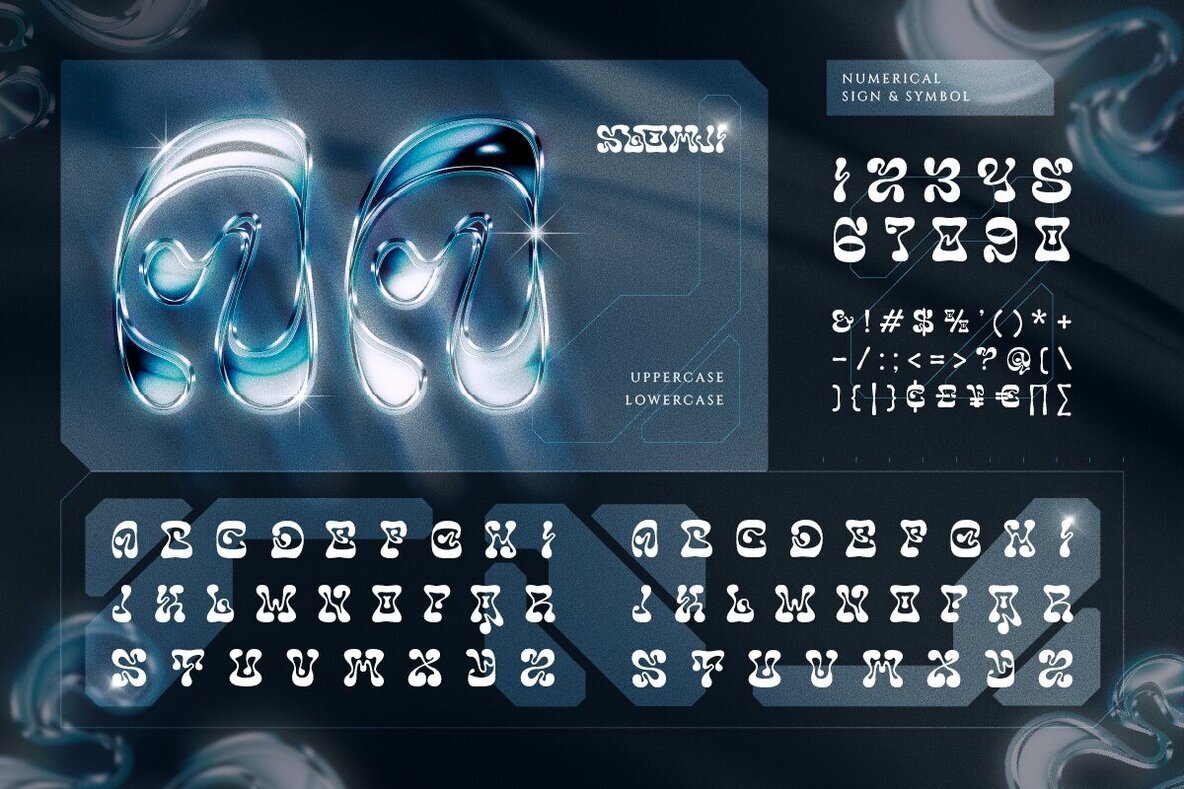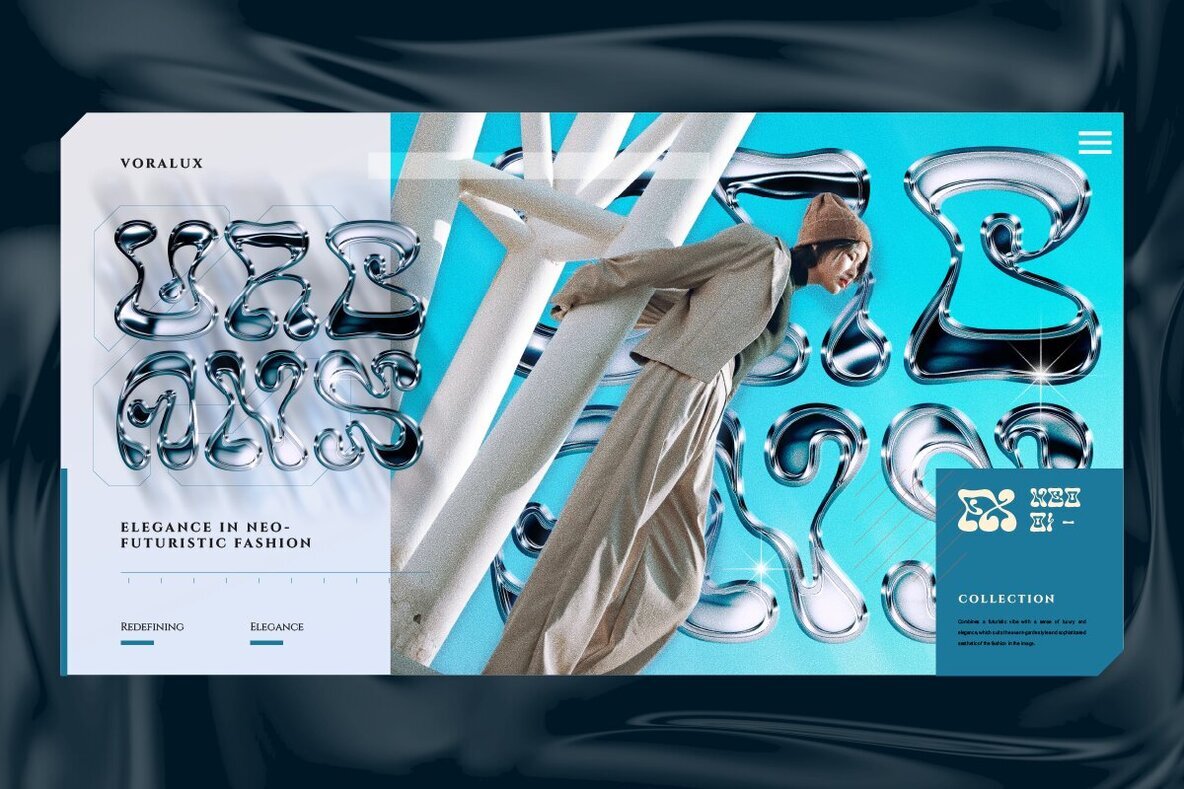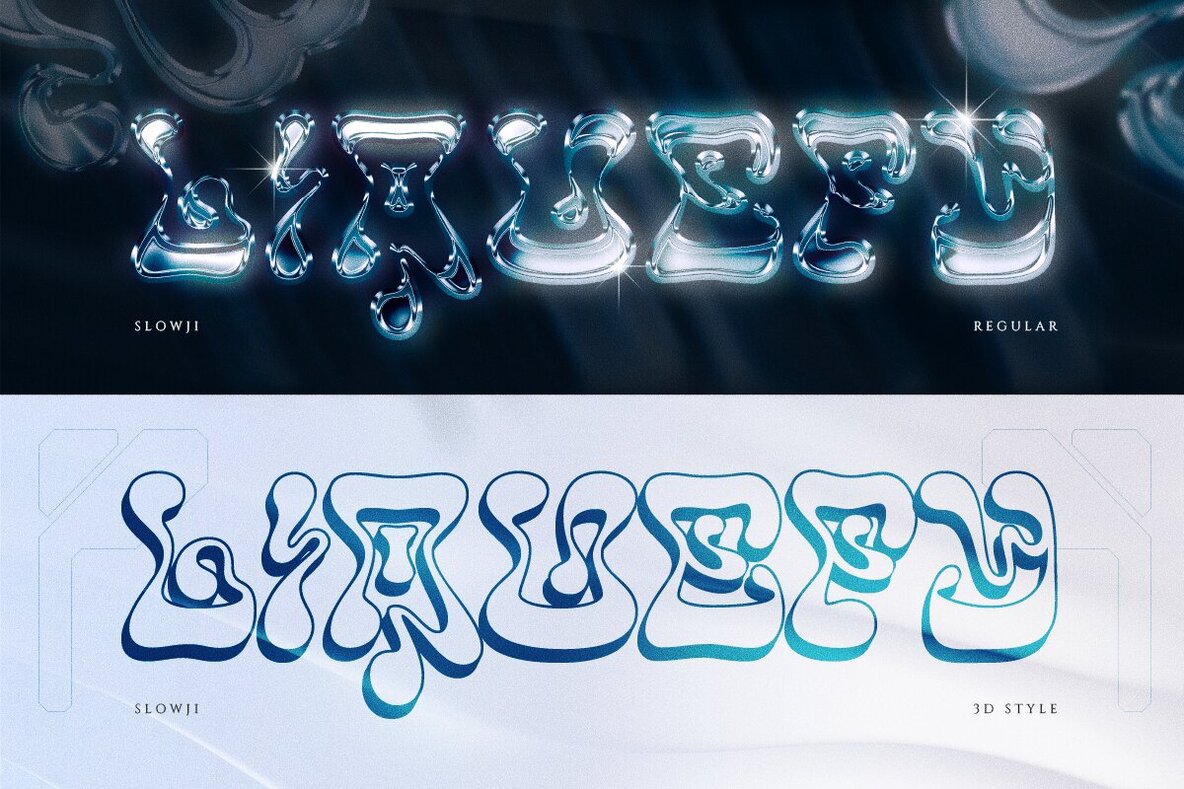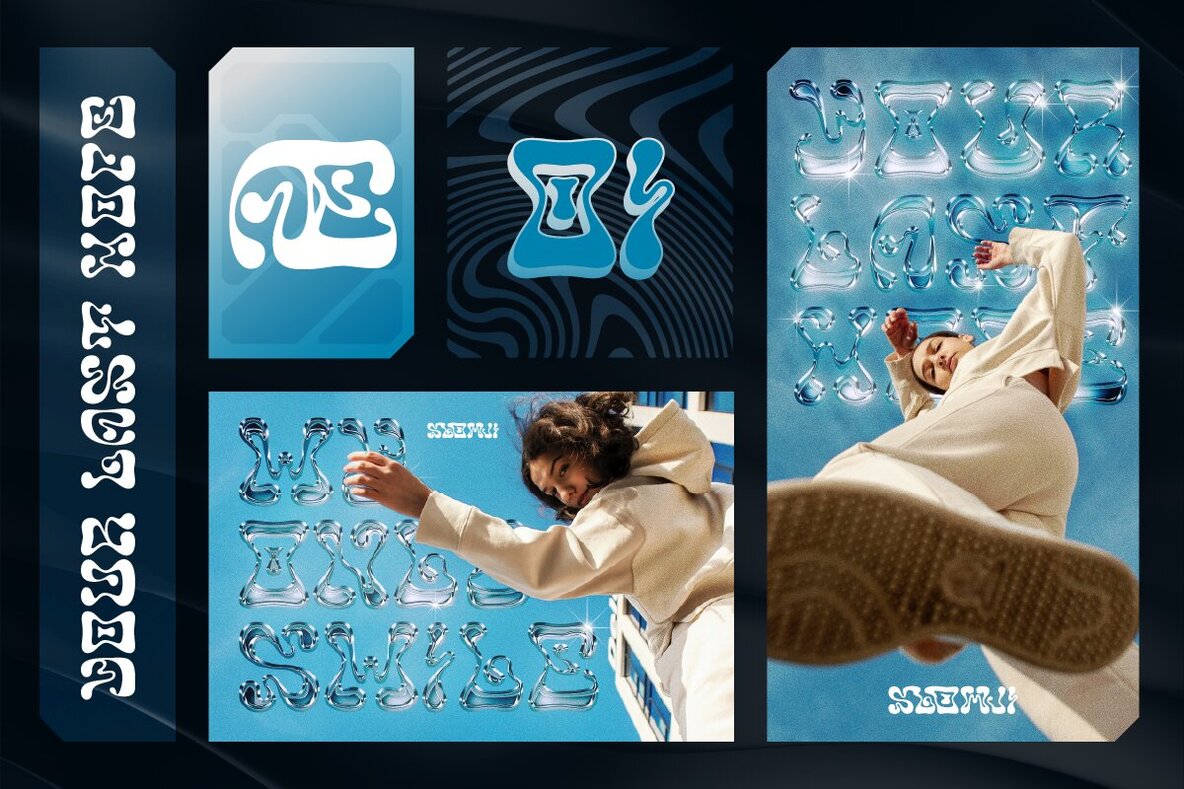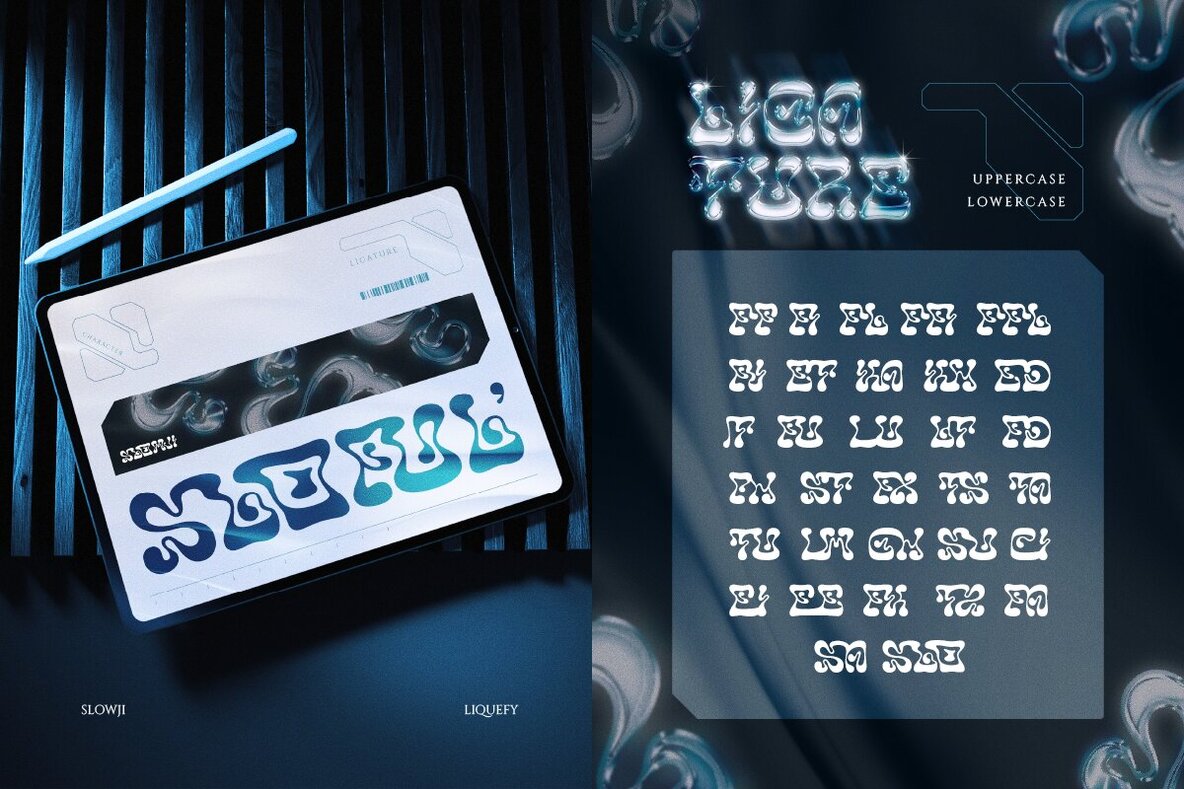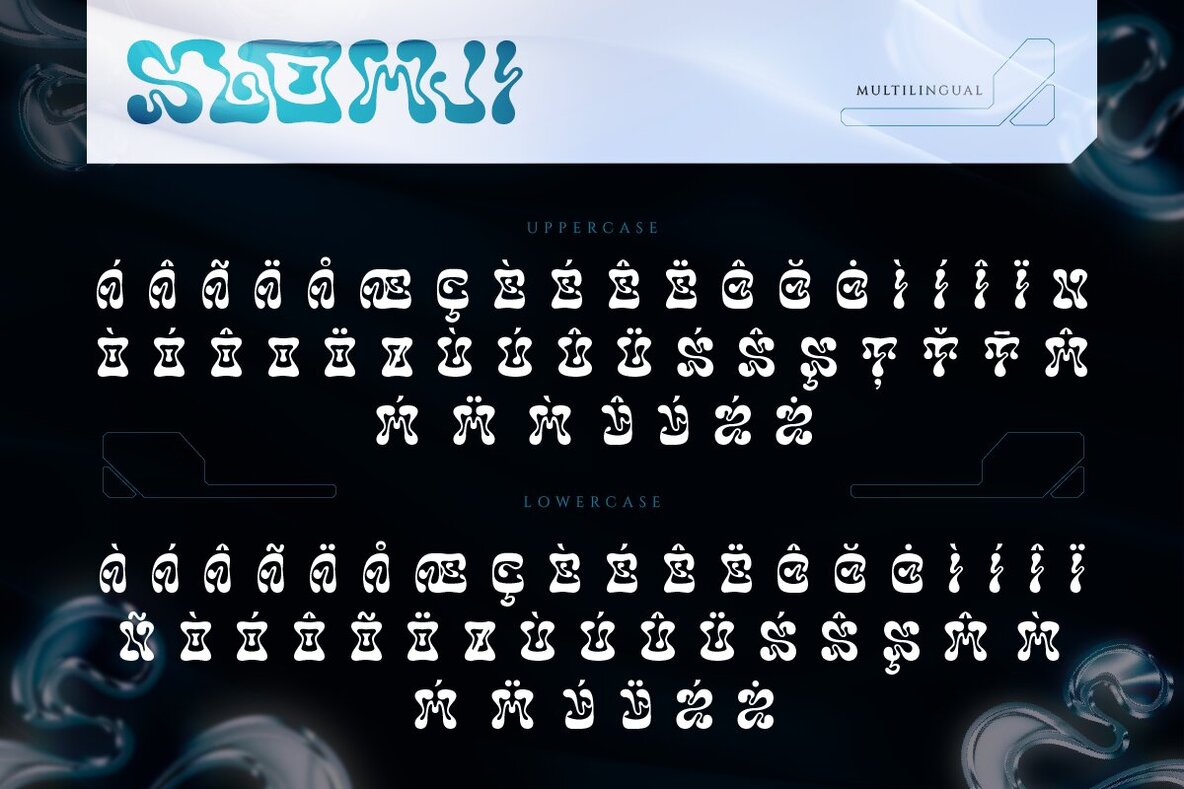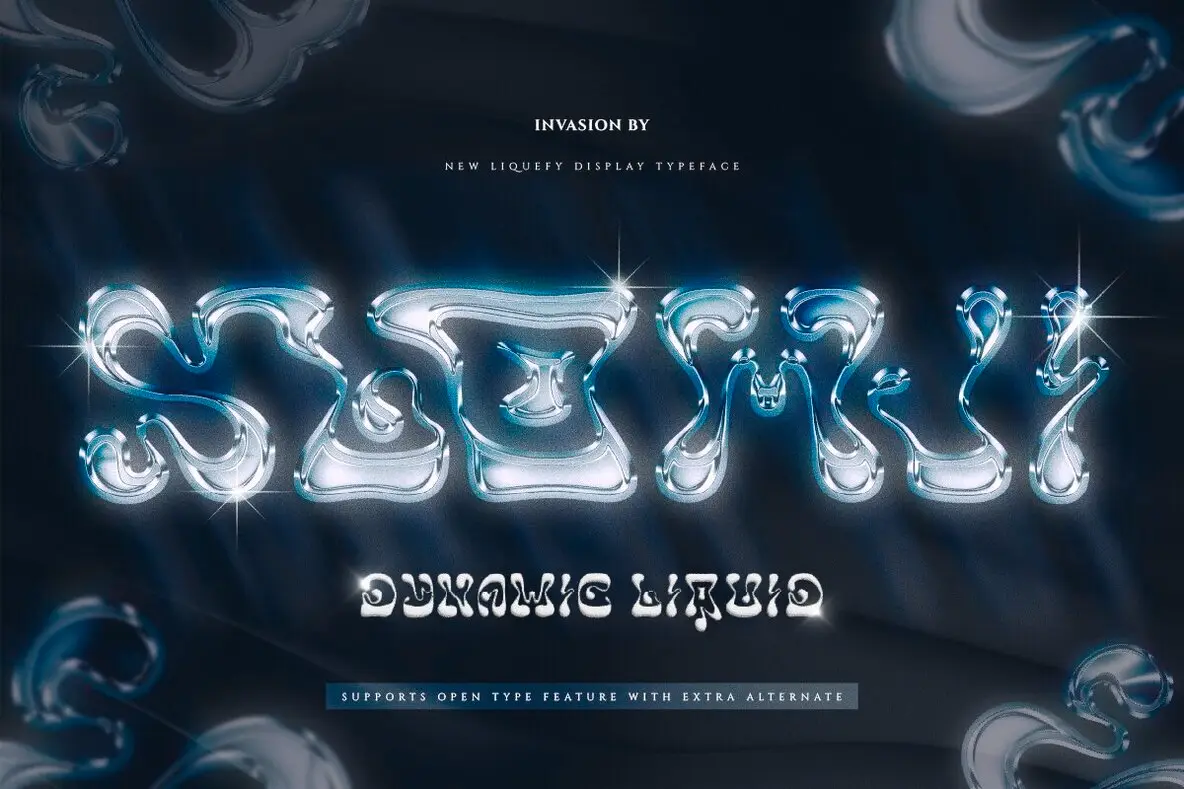
Slowji Font
Slowji Regular
Slowji 3D
Slowji is an exceptional font inspired by psychedelic forms, exuding an ethereal, liquid experience. With its undulating shapes and captivating curves, this font imparts a sense of surrealism and dynamic movement to any design. Every character seems animated, morphing and twisting as if alive, creating a visual spectacle that defies conventional norms. Ideal for projects that seek an avant-garde, experimental personality with an imaginative flair. Slowji is perfect for various creative endeavors such as trippy posters, zines, music festival branding, streetwear graphics, album covers, and any project that demands a dreamy, fluid aesthetic. Features:Slowji: Surreal Psychedelic Liquid Font